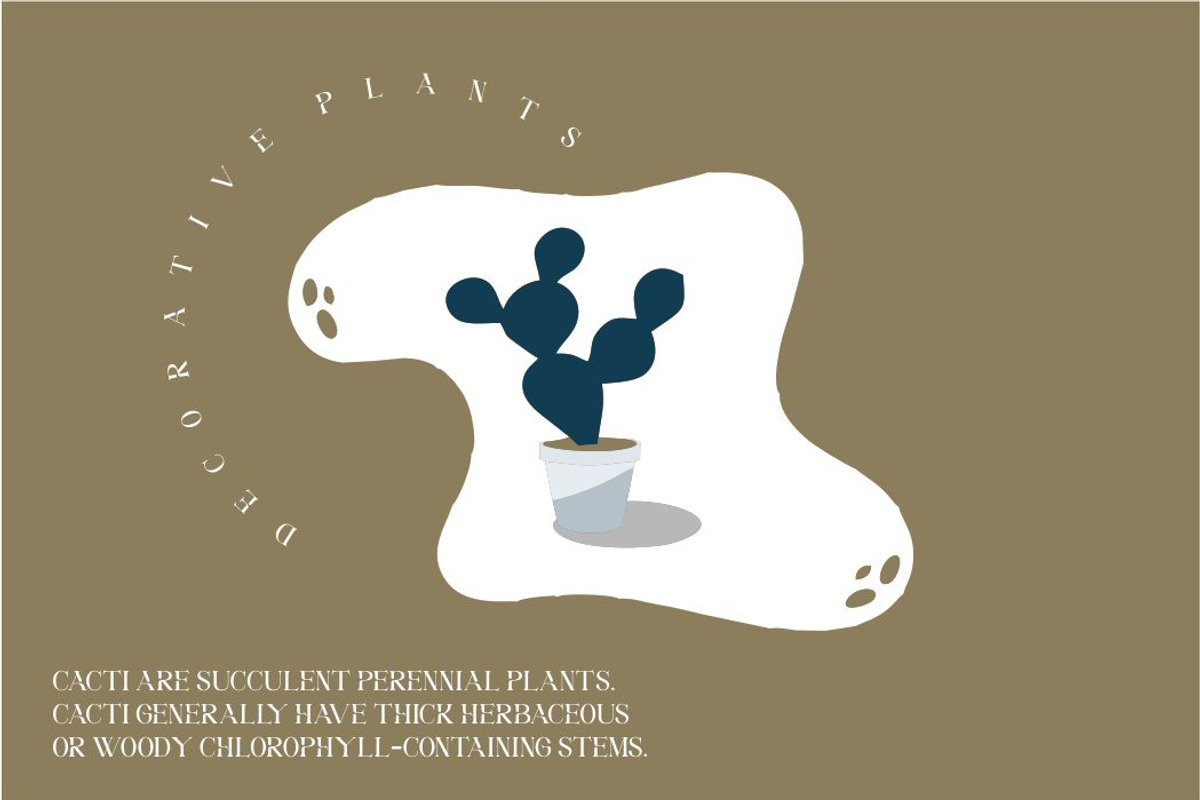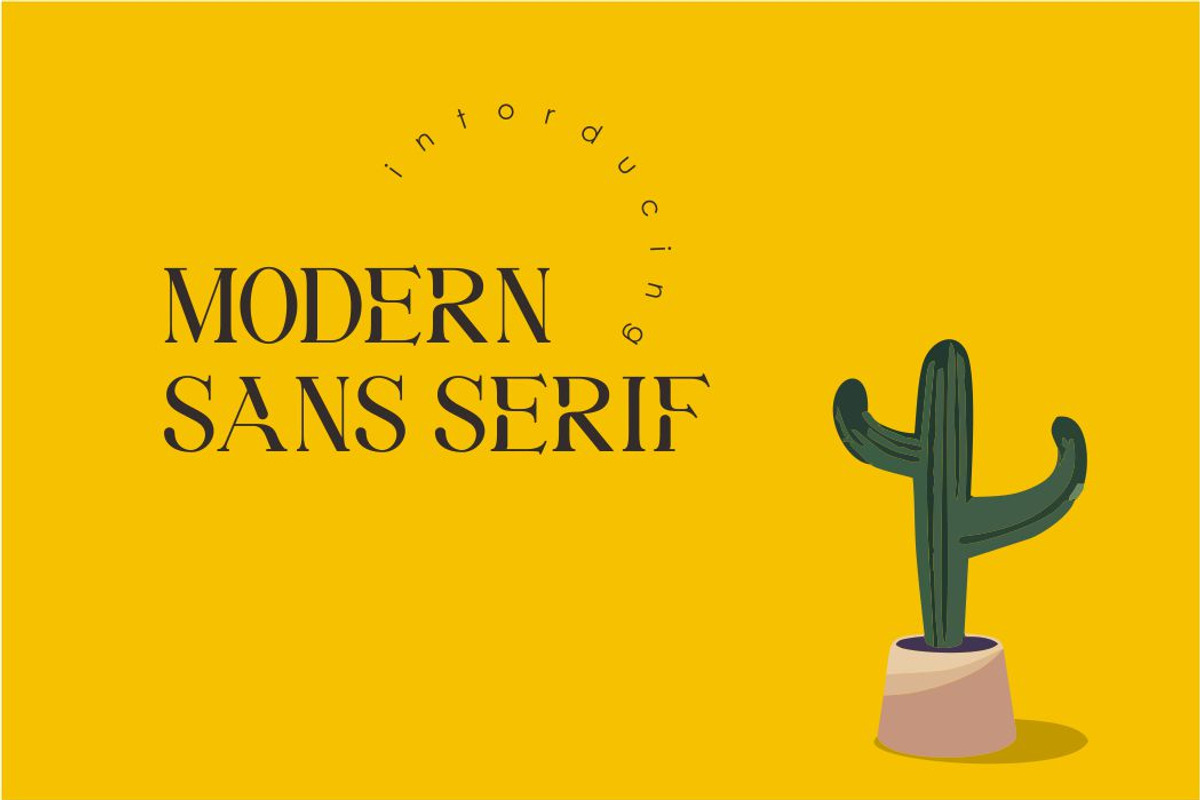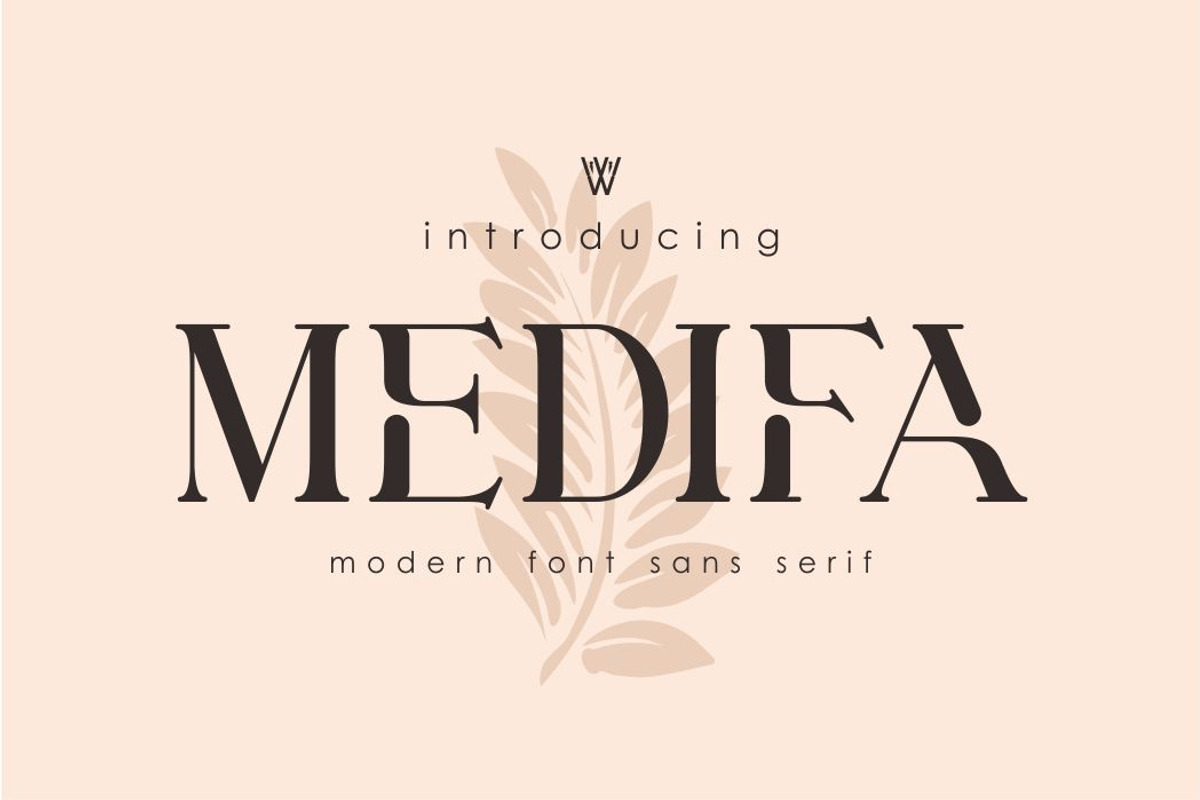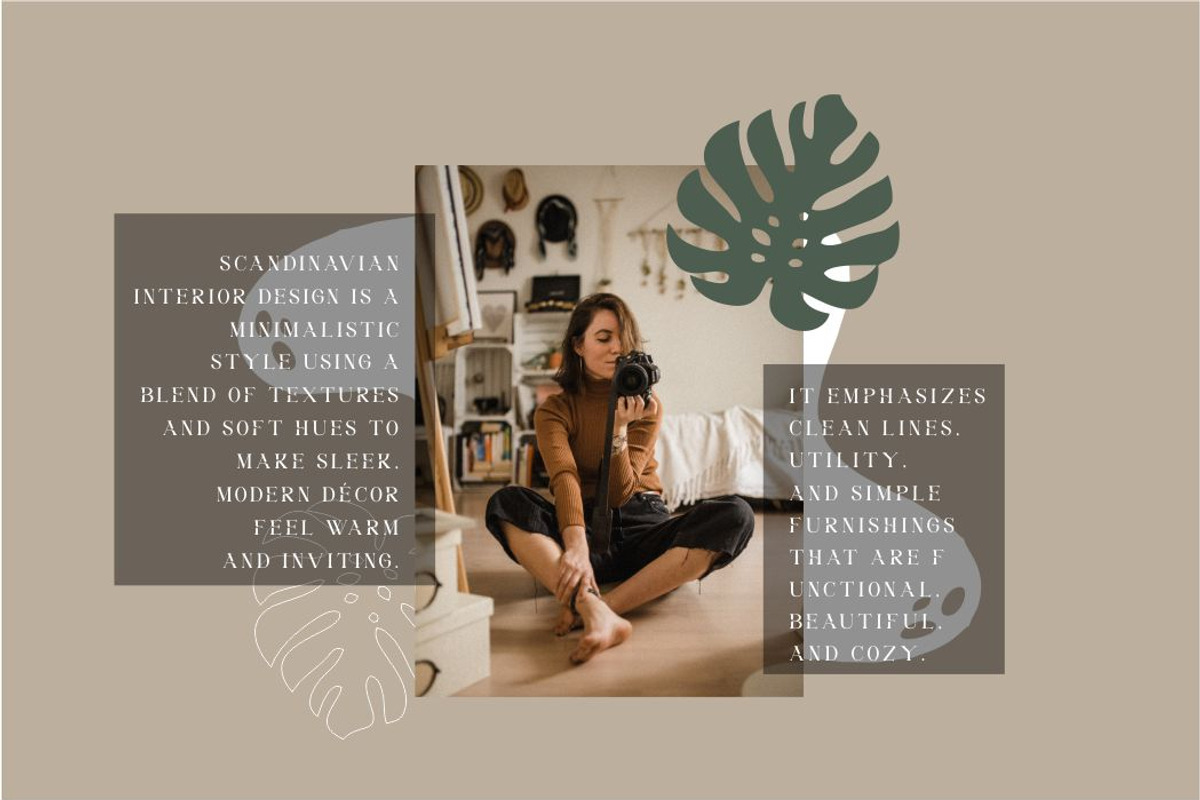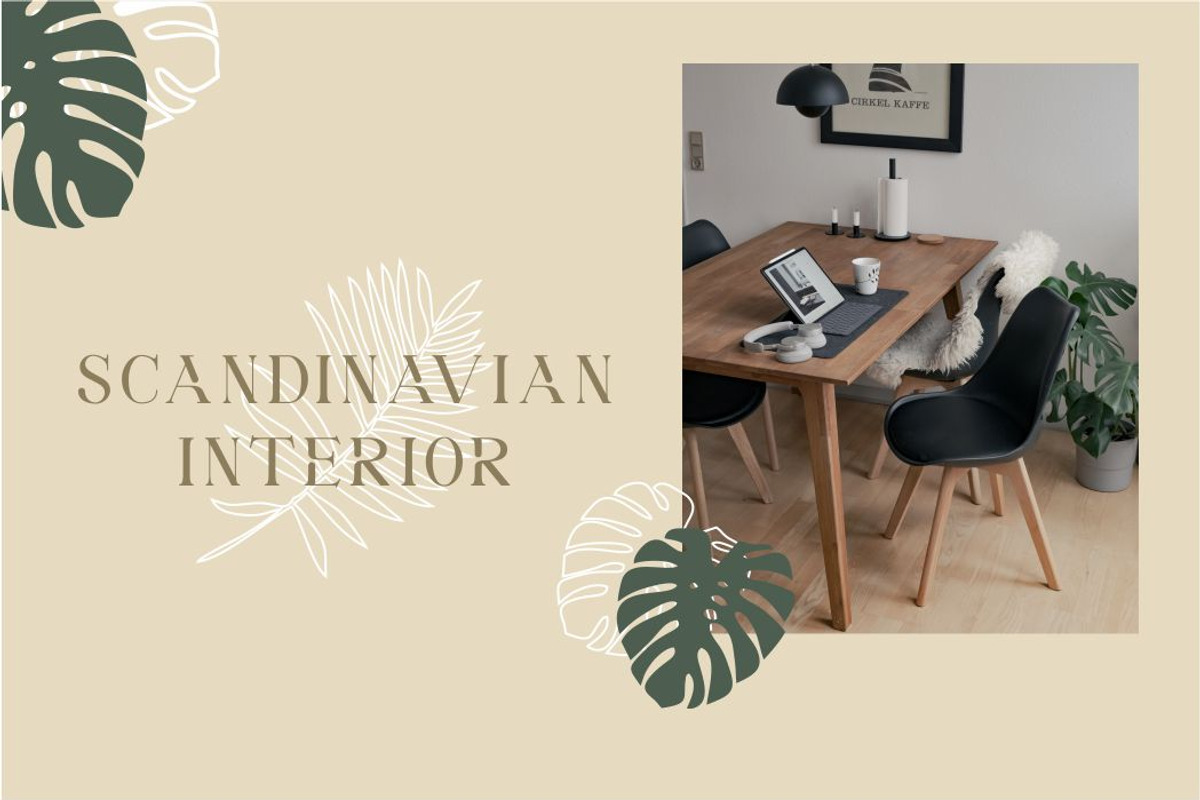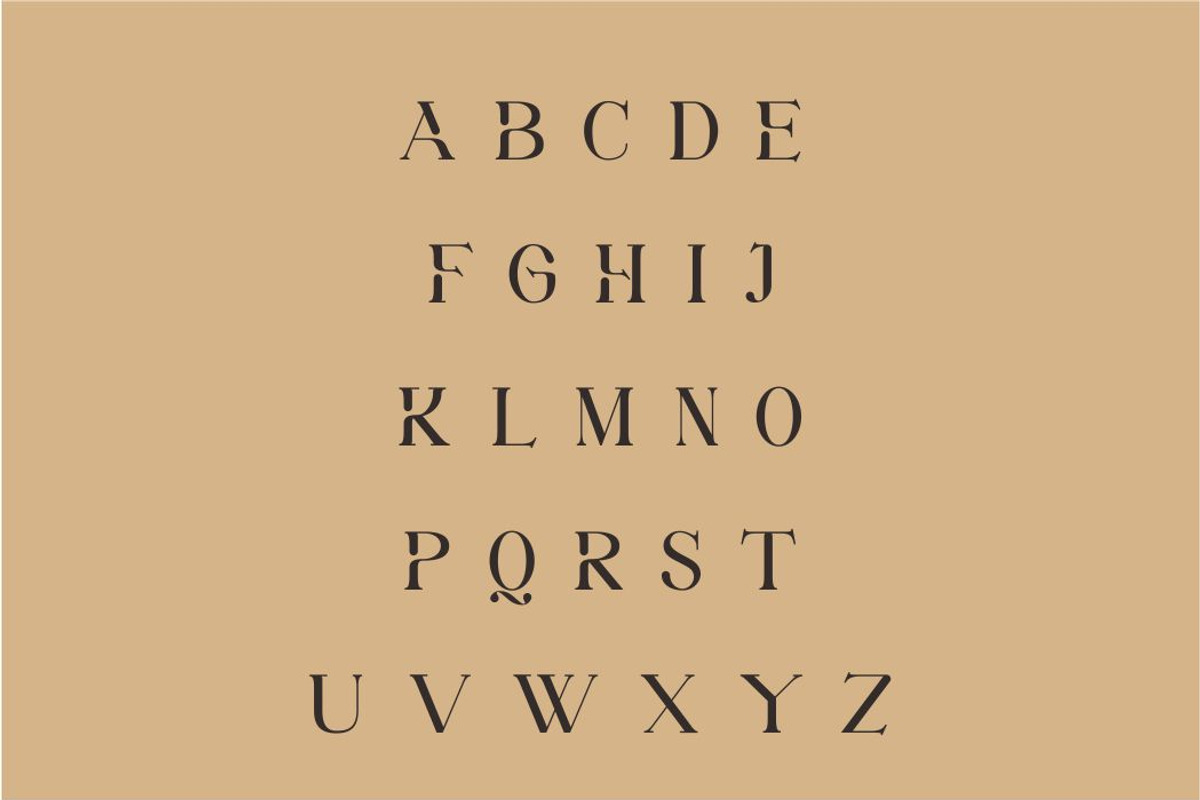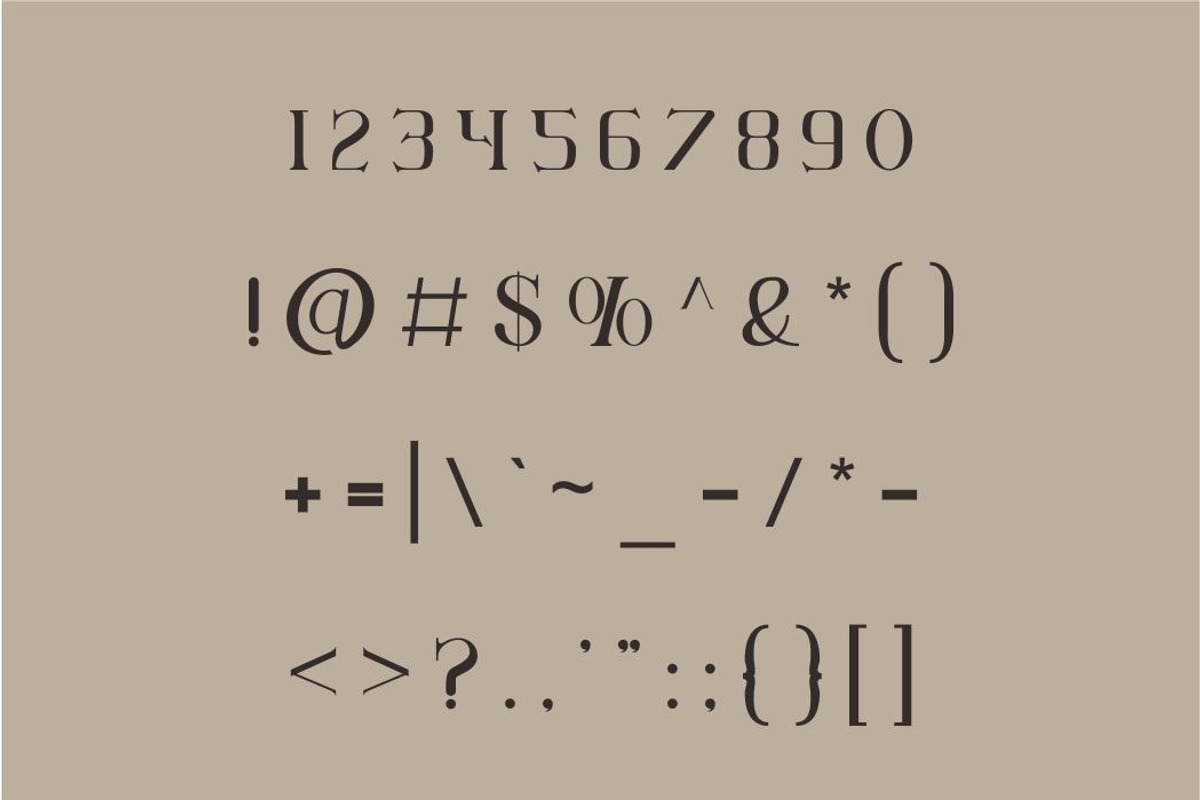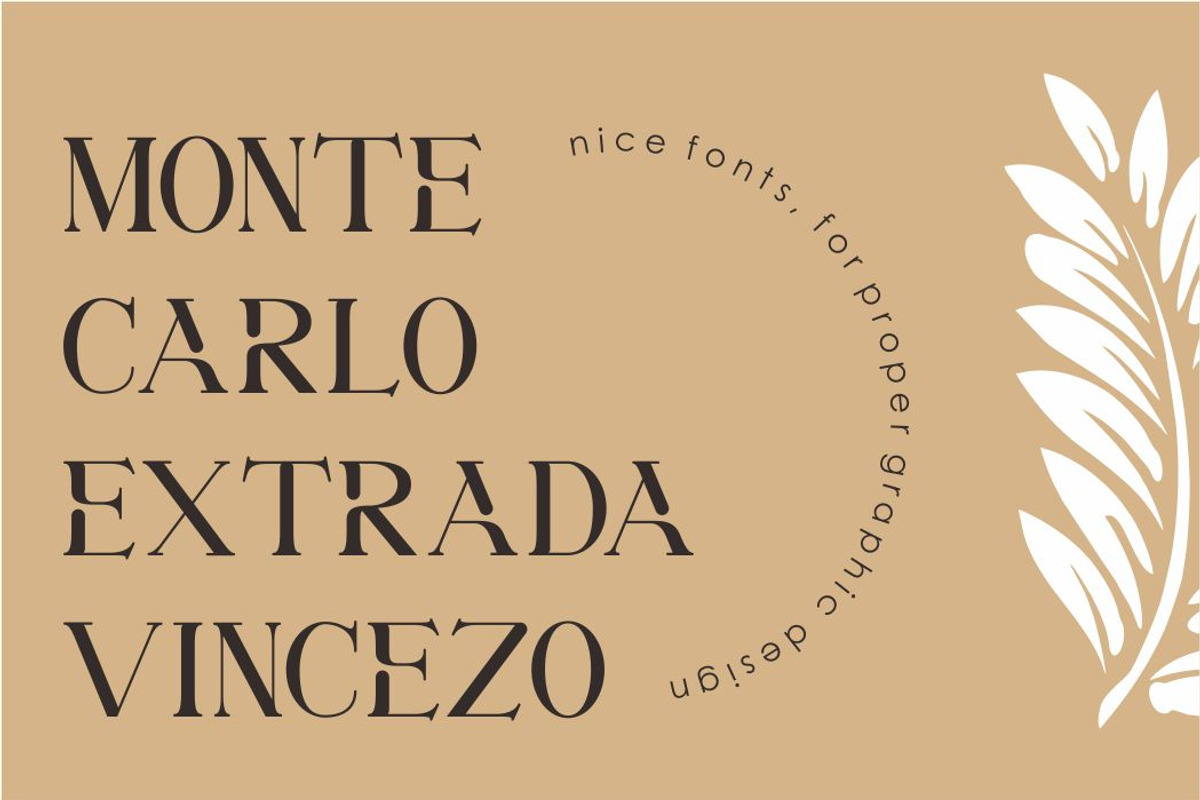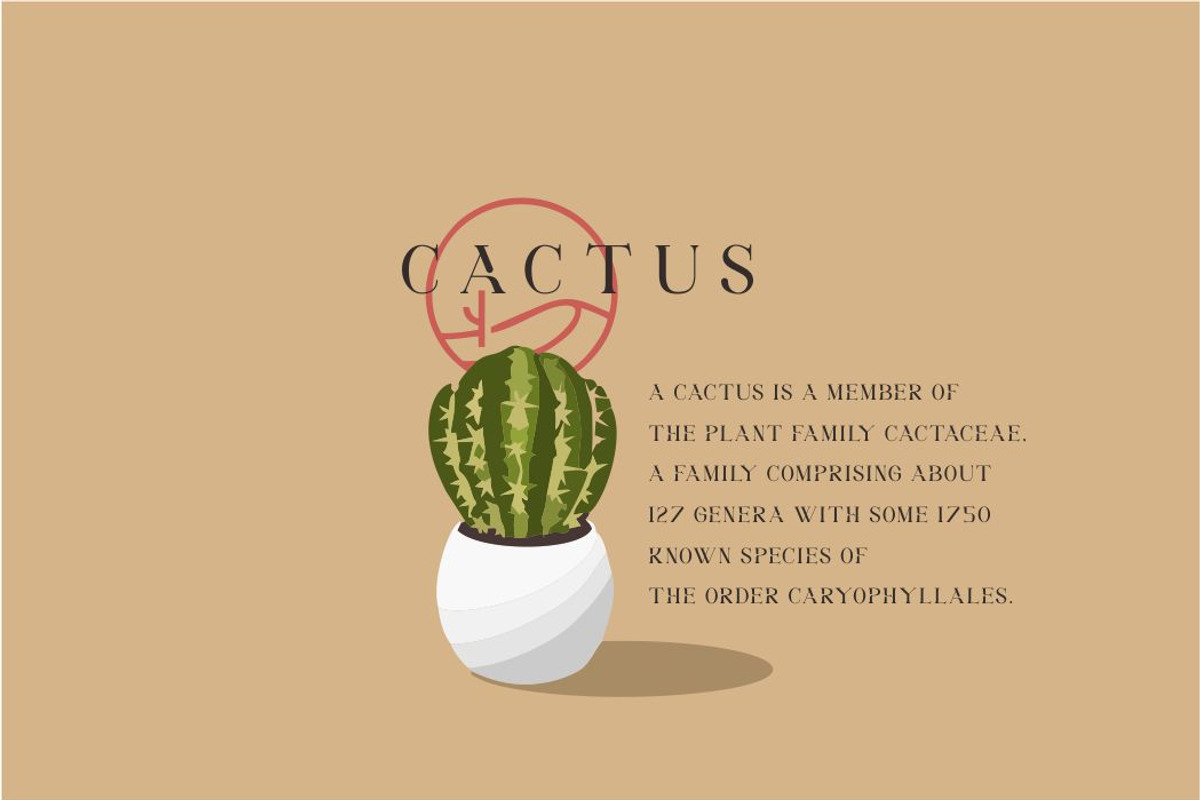
Medifa Font | Beautifull Serif Font
The Medifa Font is a captivating serif typeface that radiates beauty and sophistication. With its elegant curves and refined details, this font brings a touch of charm to any design project. Whether it’s used for invitations, branding, or editorial layouts, the Medifa Font adds a timeless elegance that elevates your work to new heights. Infuse your designs with the grace and beauty of the Medifa Font.